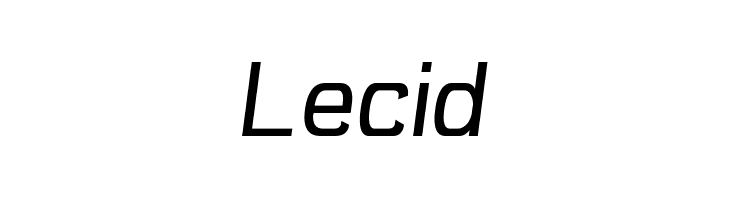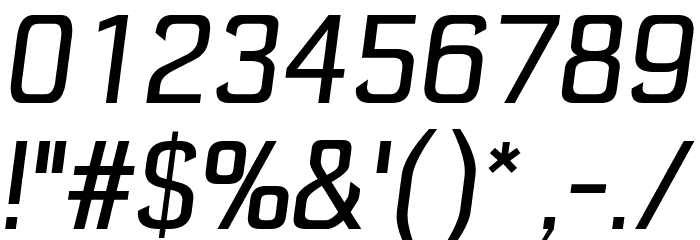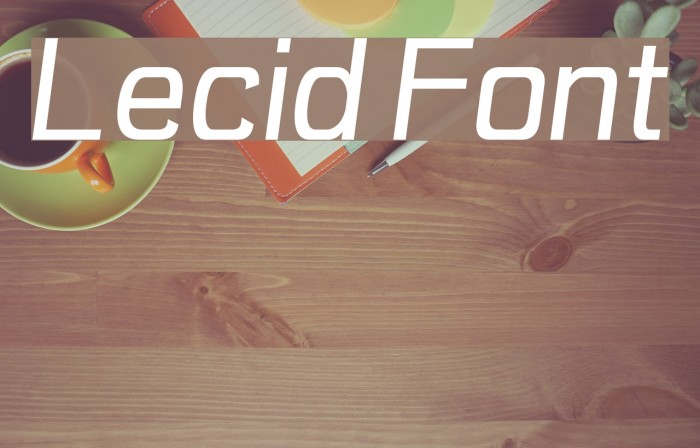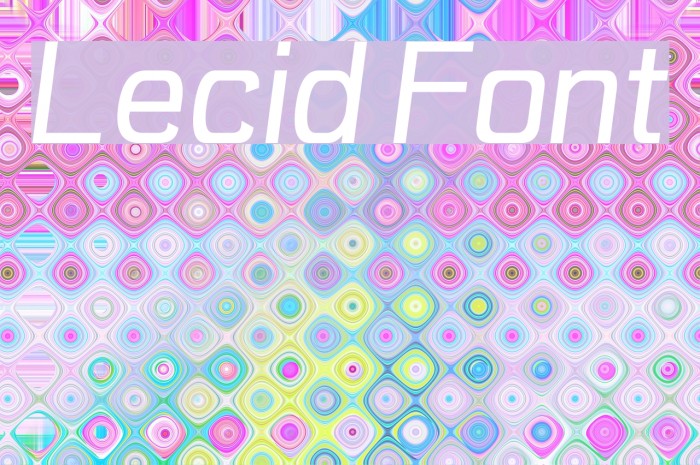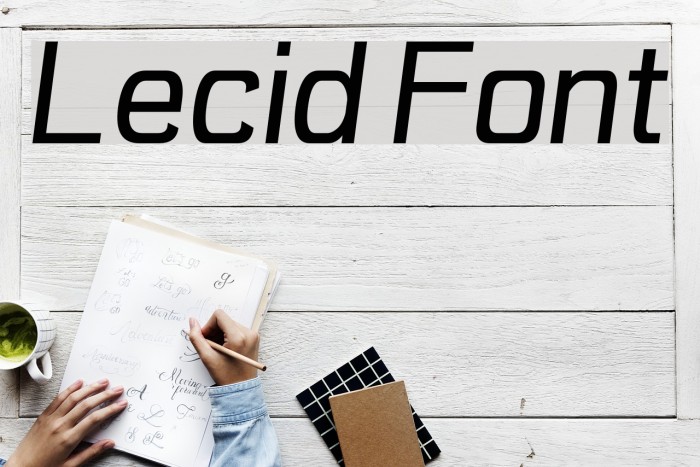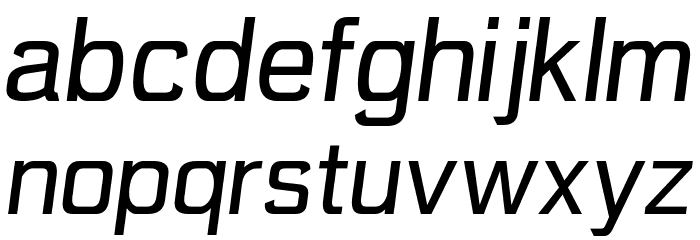
Lecid Font
Lecid Description
This font features a sleek and modern design with a slight italic slant, giving it a dynamic and forward-moving appearance. The characters are crafted with a sans-serif style, providing a clean and uncluttered look. The strokes are consistent in thickness, offering a medium contrast that enhances readability while maintaining a stylish edge. The font includes a full set of uppercase and lowercase letters, numerals, and a variety of special characters, making it versatile for various applications. Its geometric structure and slightly condensed width contribute to its contemporary aesthetic, making it suitable for both digital and print media.